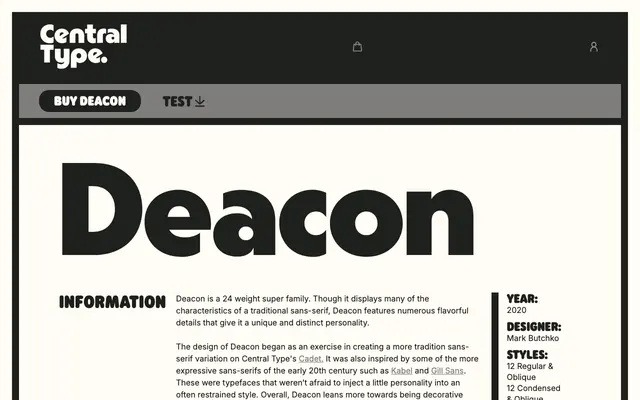
A sans-serif typeface from Central Type with limited publicly available detail at the time of capture.
Based on the foundry name and URL context, Deacon appears to be a grotesque or neo-grotesque sans-serif; without full page content, classification is inferred from common Central Type releases.